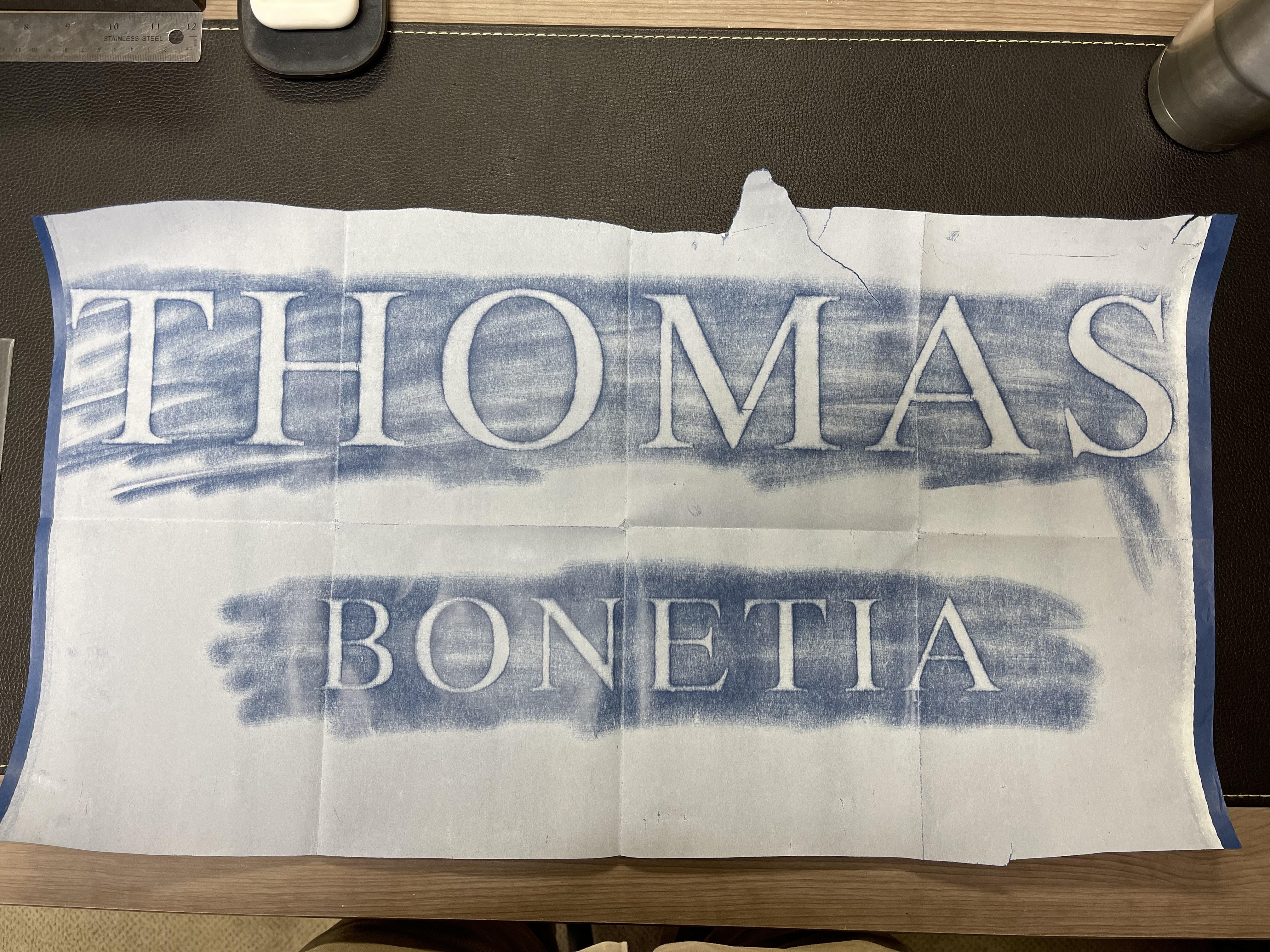
Font ID Home › Forums › Lettering and Font Identification › Font ID This topic has 1 reply, 2 voices, and was last updated 4 years ago by MLC. Viewing 2 posts - 1 through 2 (of 2 total) Author Posts May 17, 2022 at 7:53 am #5047 John WeekleyParticipant Let me know what you think May 17, 2022 at 9:55 am #5052 MLCKeymaster Hi John, this is Times Regular, not Times New Roman. The ‘S’ on New Roman won’t match. Author Posts Viewing 2 posts - 1 through 2 (of 2 total) You must be logged in to reply to this topic. Log In Username: Password: Keep me signed in Log In